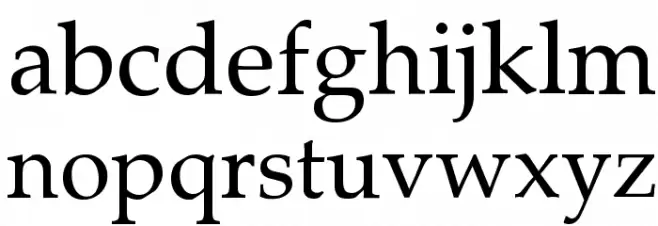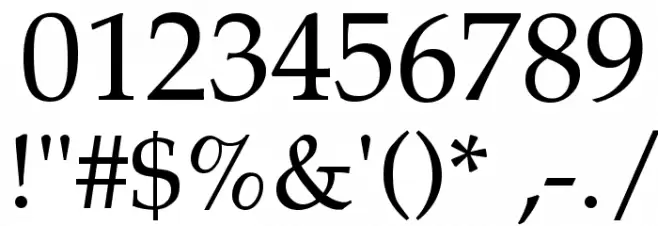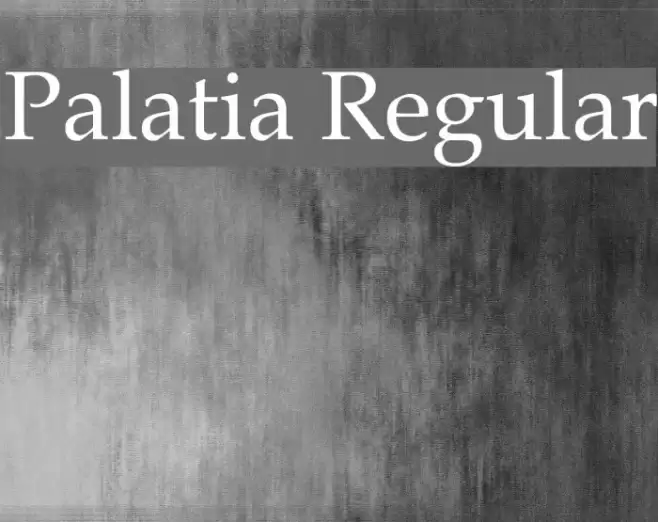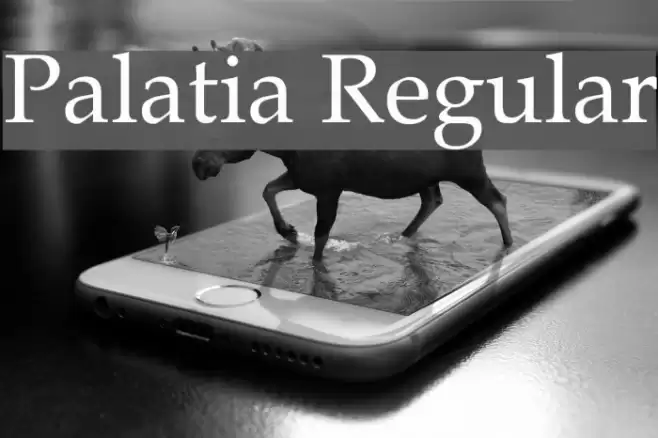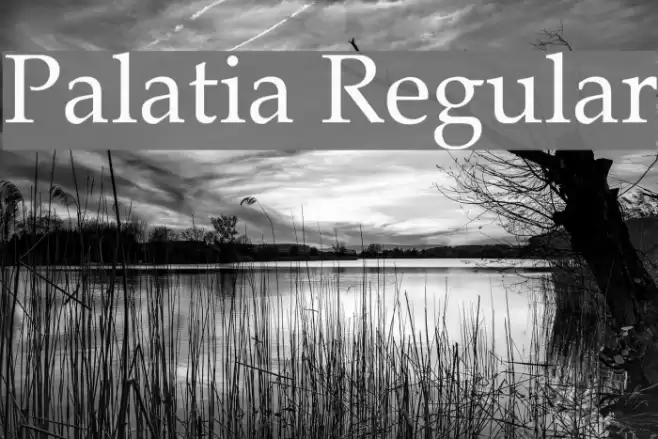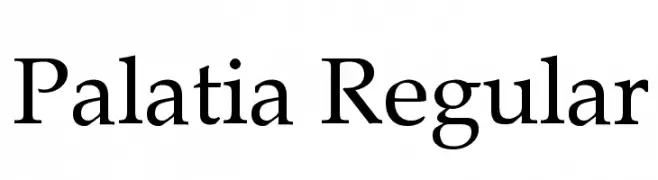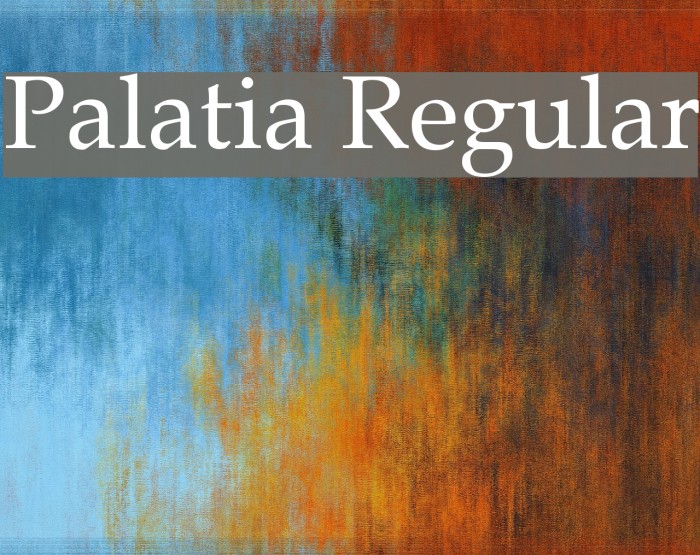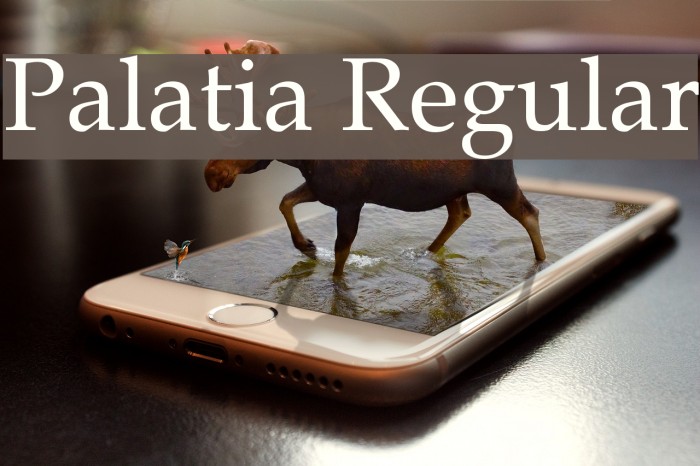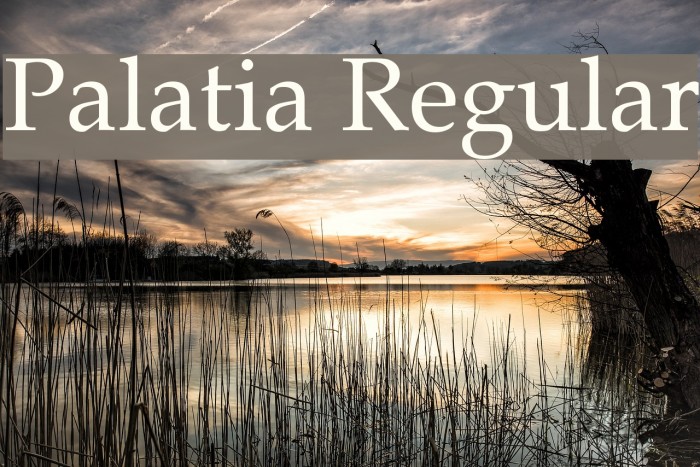
Palatia Regular
This font exudes a classic elegance with its serif style, characterized by its clean and sharp lines. The uppercase letters are well-proportioned, offering a sense of formality and tradition. The lowercase letters maintain a consistent style, with smooth curves and a balanced weight distribution. The numerals are clear and legible, making them suitable for both text and display purposes. Special characters are thoughtfully designed, complementing the overall aesthetic. This font is versatile, suitable for a variety of applications where readability and a touch of sophistication are desired.
A classic serif font with elegant, sharp lines and balanced proportions.
- Proposed Projects: Ideal for editorial design, book covers, formal invitations, and branding materials.
- Category: Serif
- Overall Style: Classic